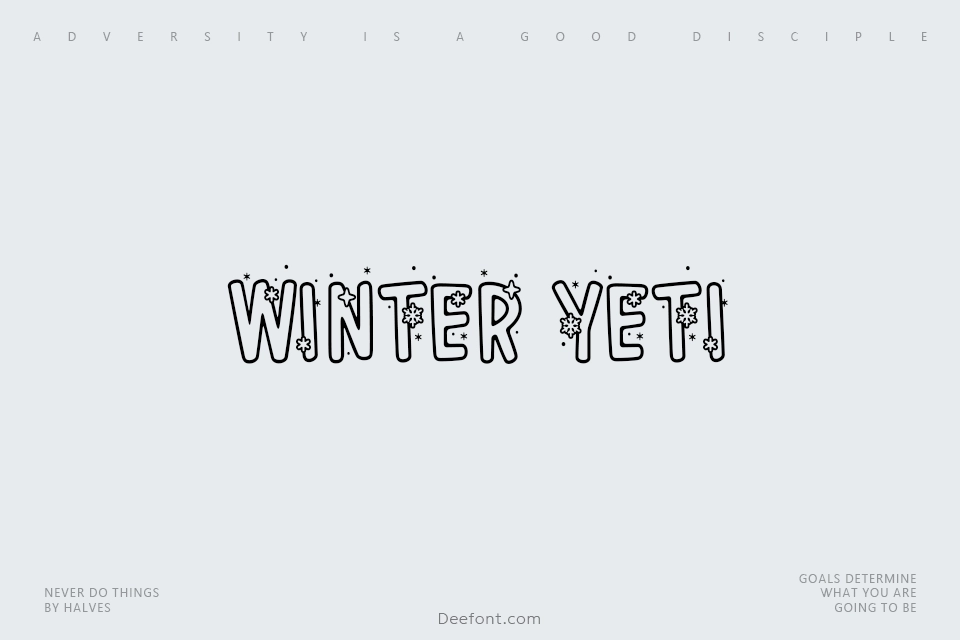
Winter Yeti Font
Winter Yeti is a fun, playful decorative font featuring chunky letters with rounded corners that resemble a yeti’s fur, perfect for creating wintery designs. This typeface excels in headings, posters, and holiday-themed projects, offering a whimsical and charming aesthetic. With its full range of uppercase and lowercase letters, numbers, and symbols, Winter Yeti brings a festive, snow-inspired vibe to any creative work, making it ideal for winter carnival promotions and seasonal branding.